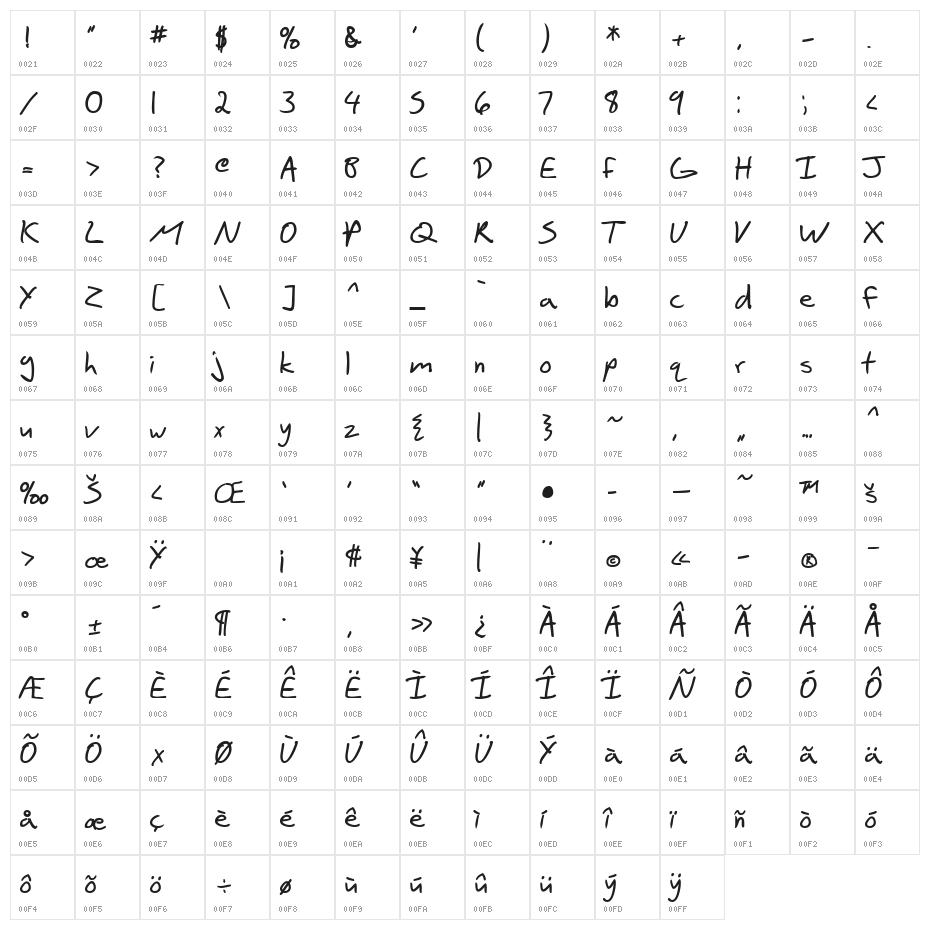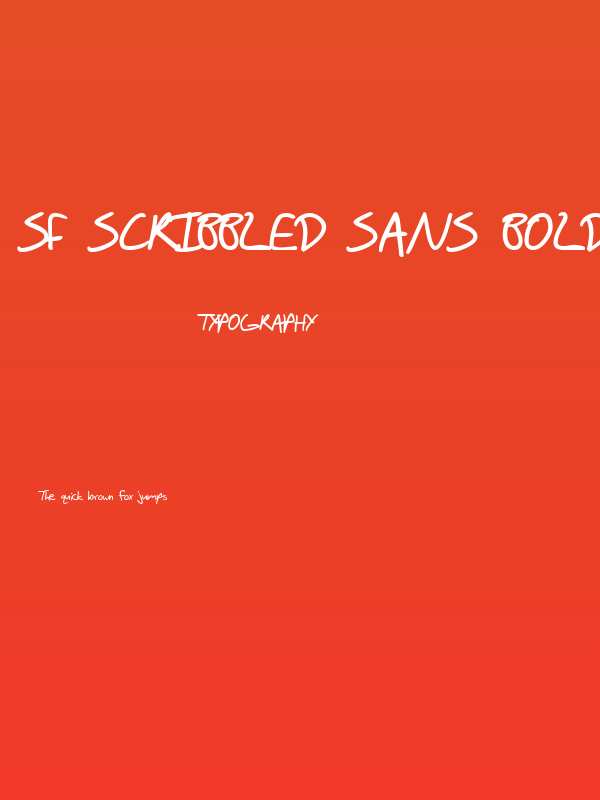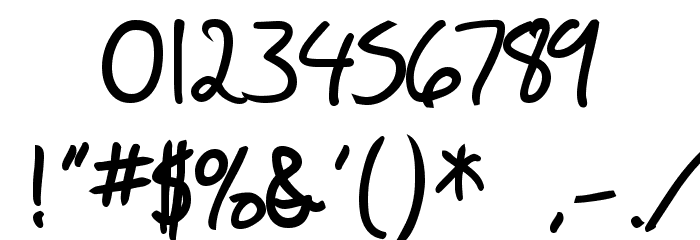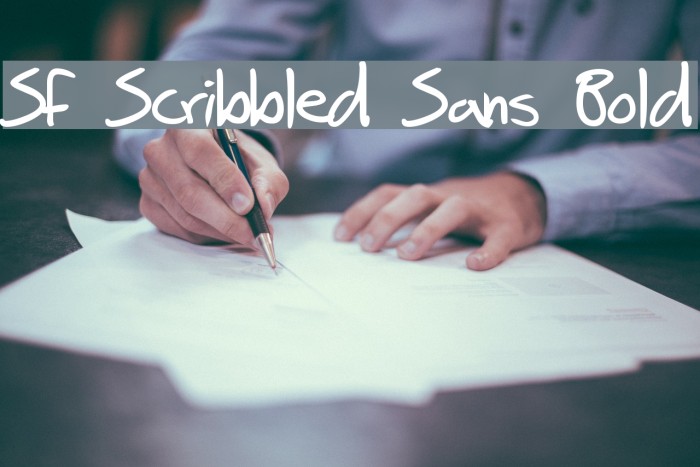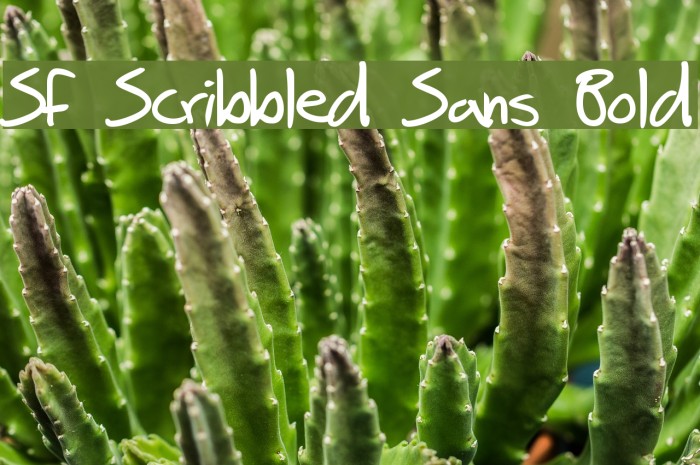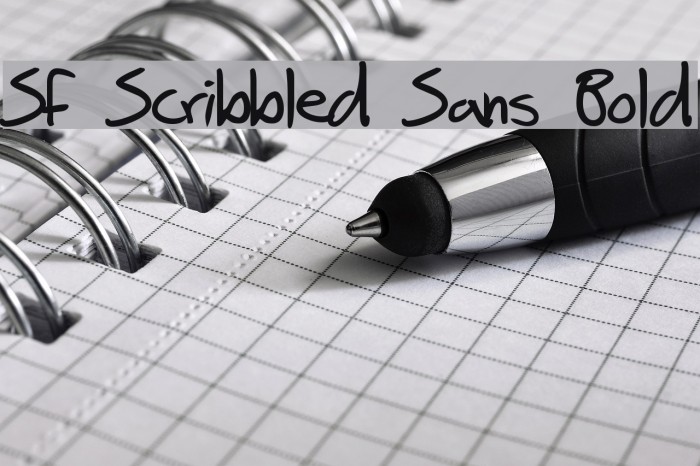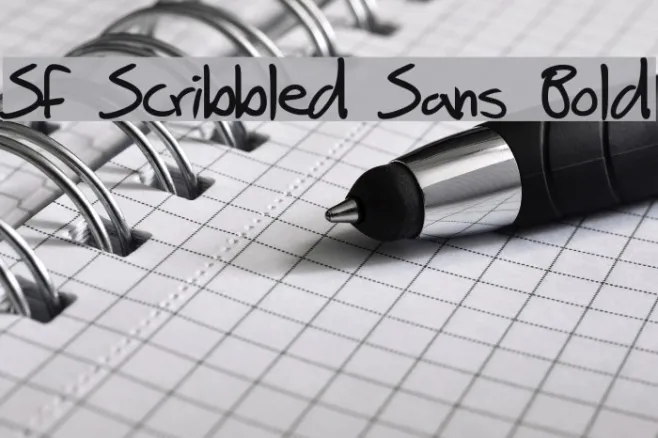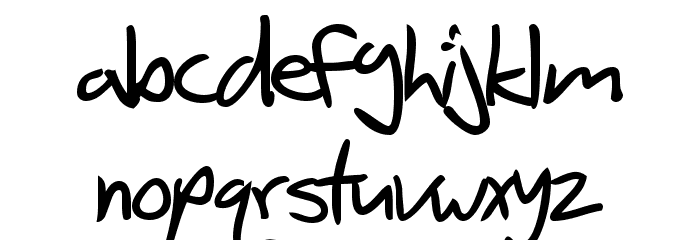
SF Scribbled Sans Bold Font
SF Scribbled Sans Bold Description
This font features a playful and informal handwritten style, characterized by its bold and dynamic strokes. The letters are slightly slanted, giving a sense of motion and energy. The uppercase and lowercase characters maintain a consistent style, with rounded edges and varying stroke widths that add to its casual appearance. The numerals and special characters follow the same design principles, ensuring uniformity across all elements. This font exudes a sense of creativity and spontaneity, making it ideal for projects that require a personal touch.
| Overall Style | Casual, Playful |
| Use Case | Headlines, Logos, Informal Invitations |
| Proposed Projects | Ideal for creative projects such as greeting cards, posters, and social media graphics. It can also be used for branding that seeks a casual and approachable look. |